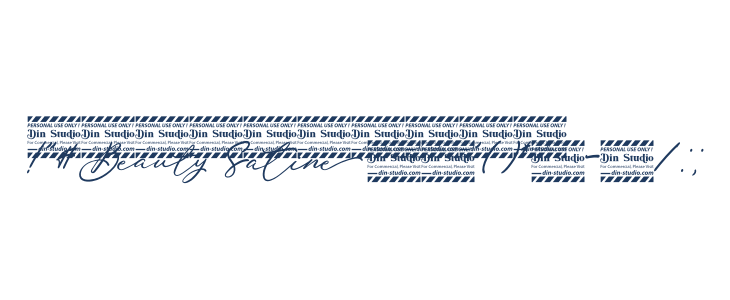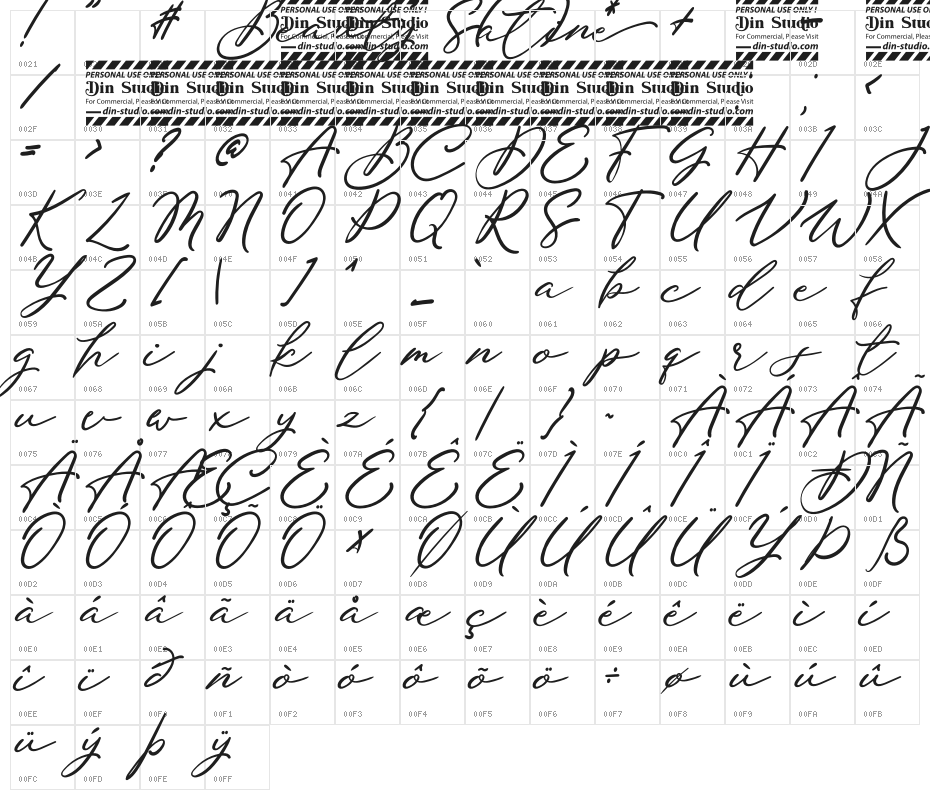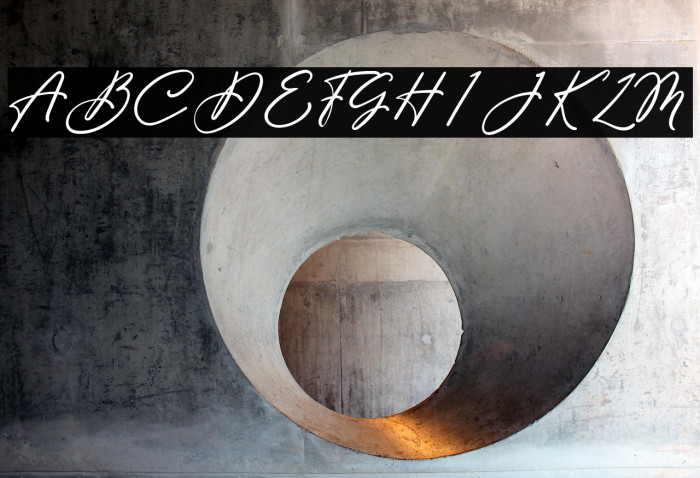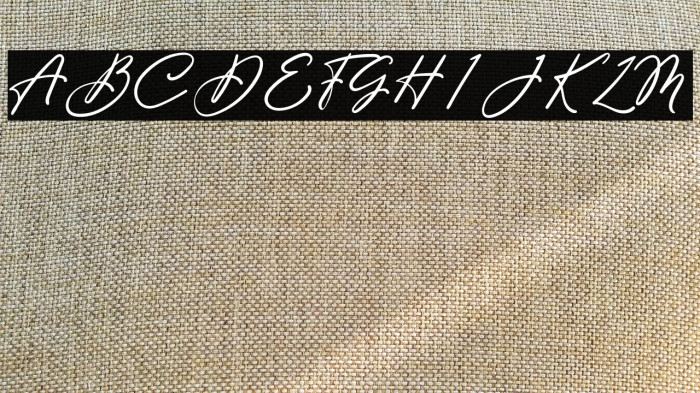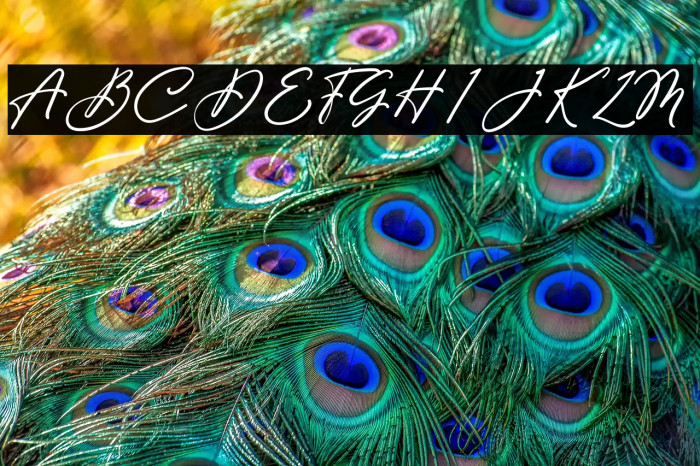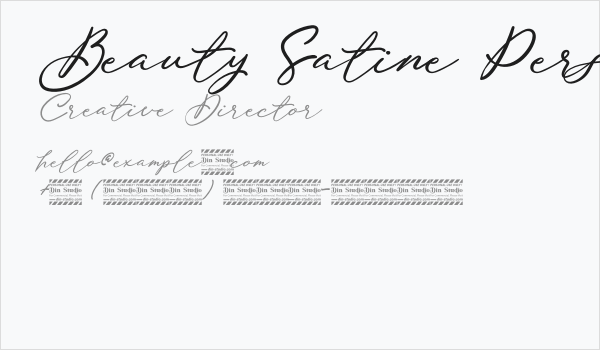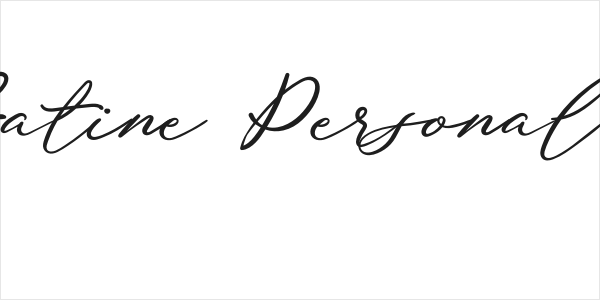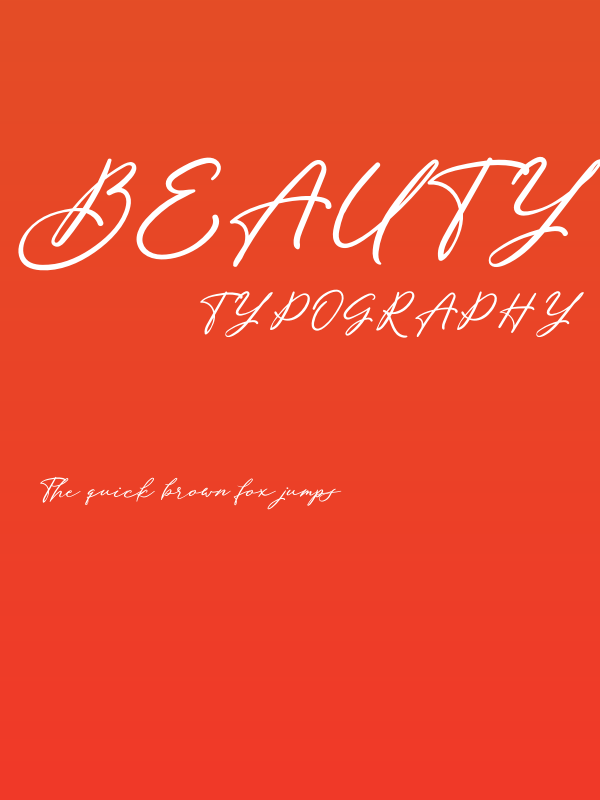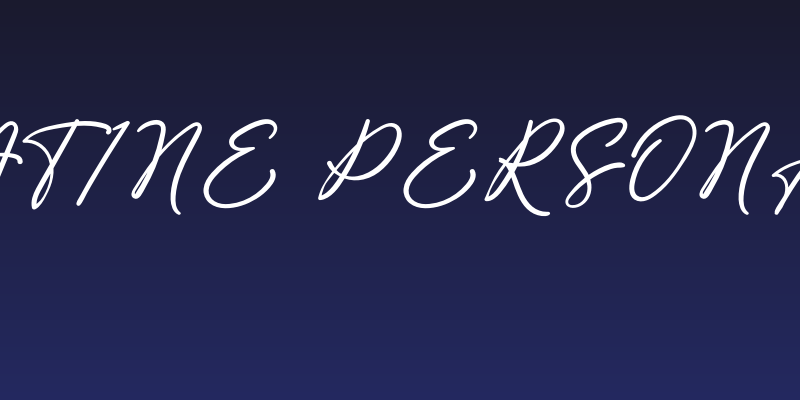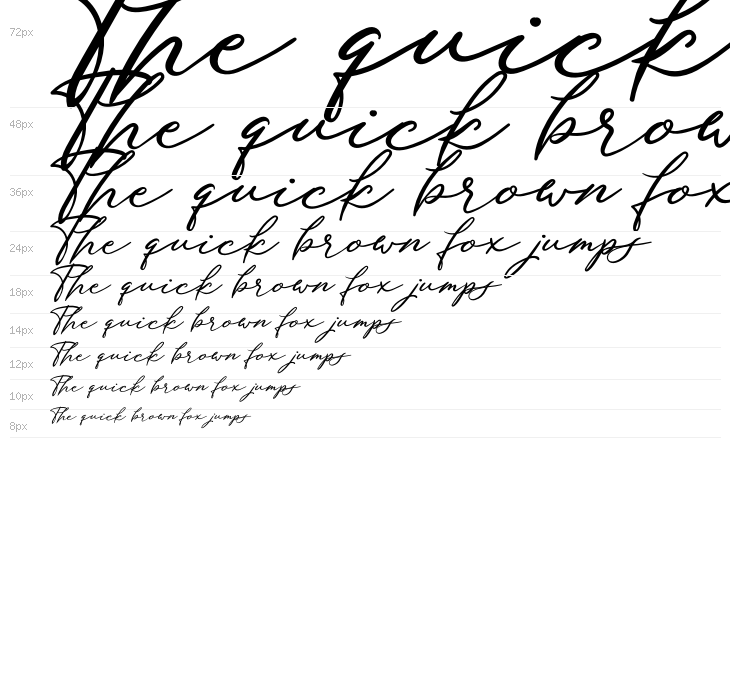
Beauty Satine Personal Use Font Font
Beauty Satine Personal Use Font Description
This elegant script font features fluid, cursive strokes that convey a sense of sophistication and grace. The letters are connected, creating a seamless flow that is both artistic and legible. The uppercase letters are slightly more ornate, with flourishes that add a touch of flair, while the lowercase letters maintain a consistent rhythm and style. The font's design is reminiscent of traditional calligraphy, yet it retains a modern sensibility, making it versatile for various design applications. The characters are well-spaced, ensuring readability without compromising on style. This font is ideal for projects that require a personal touch or a sense of elegance.
| Overall Style | Elegant, Modern |
| Proposed Projects | Wedding invitations, greeting cards, branding, and logo design. |